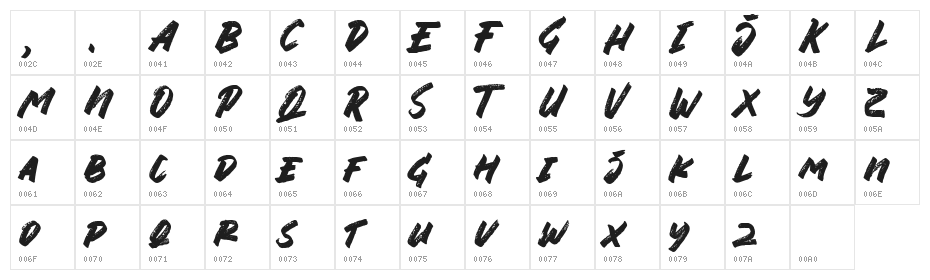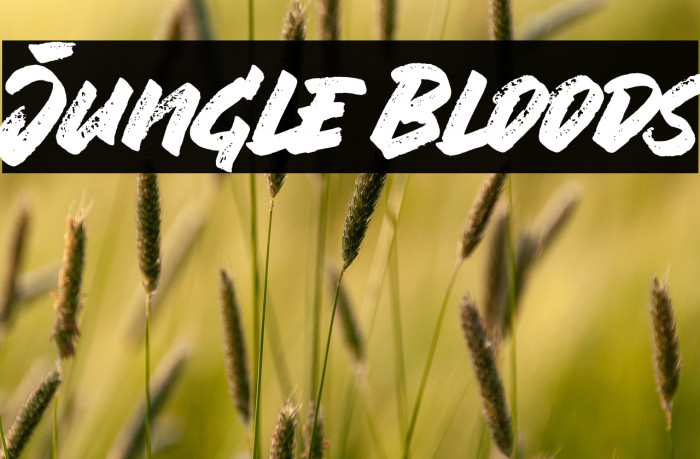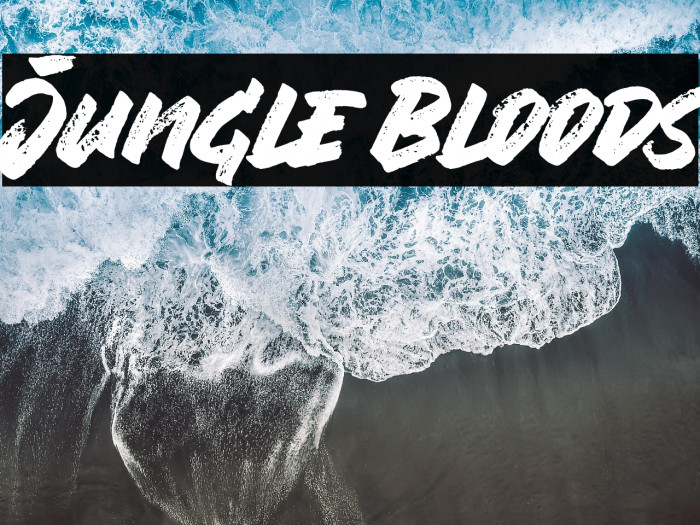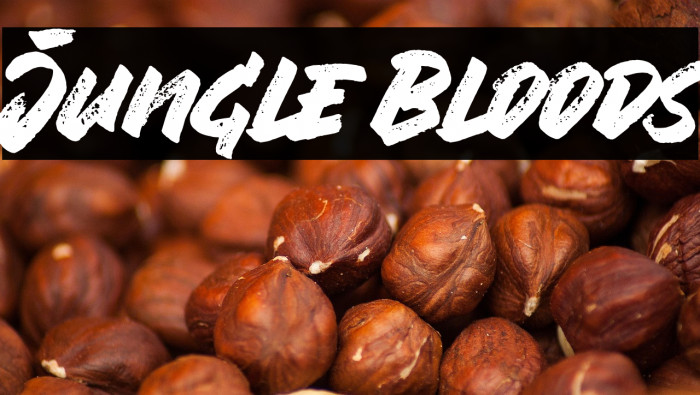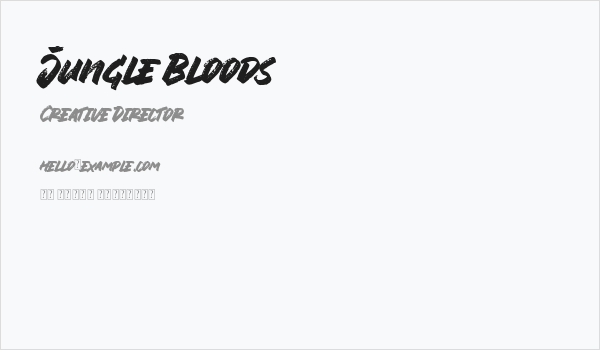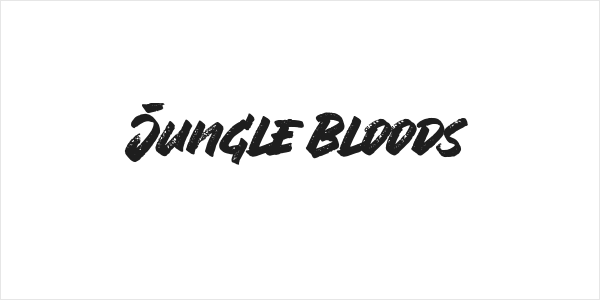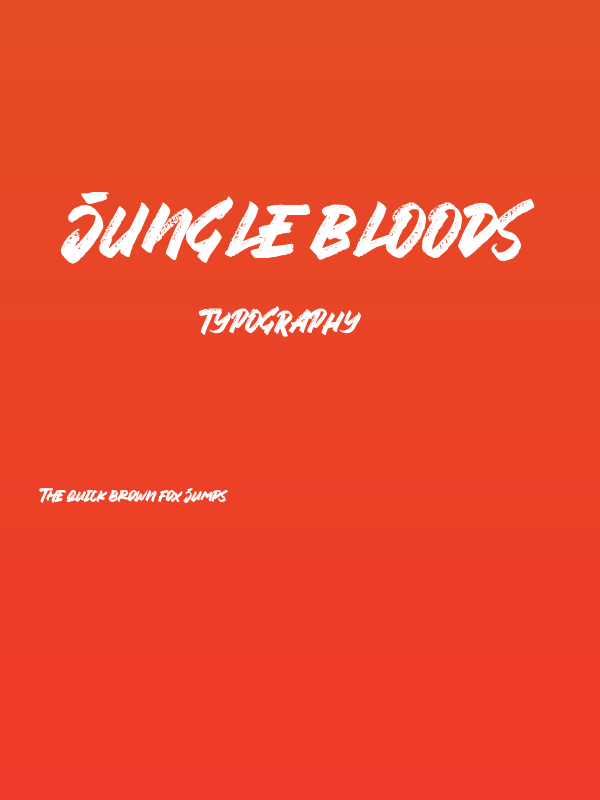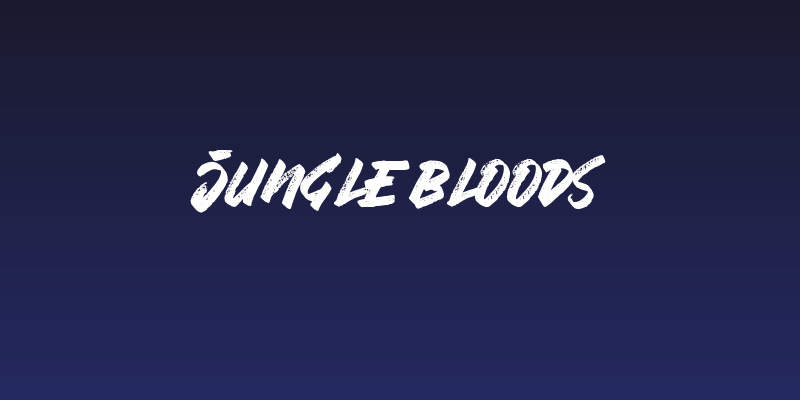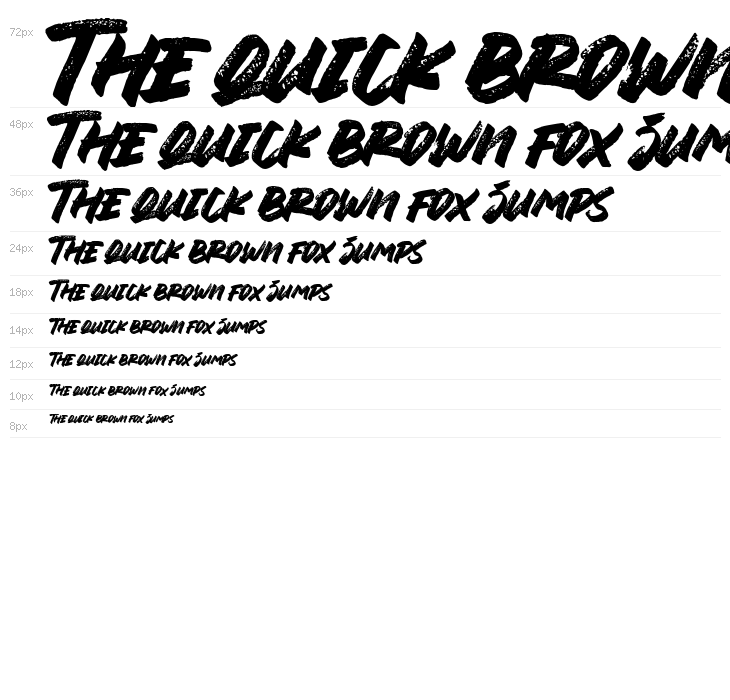
Jungle Bloods Font
Jungle Bloods Description
This font features a bold and dynamic brush script style, characterized by its textured and rough edges that give it a hand-painted appearance. The letters are slightly slanted, adding a sense of movement and energy. The uppercase and lowercase letters maintain a consistent style, with a playful and artistic flair. The font's rugged texture makes it ideal for projects that require a raw and organic feel. Its boldness ensures high visibility, making it suitable for impactful designs.